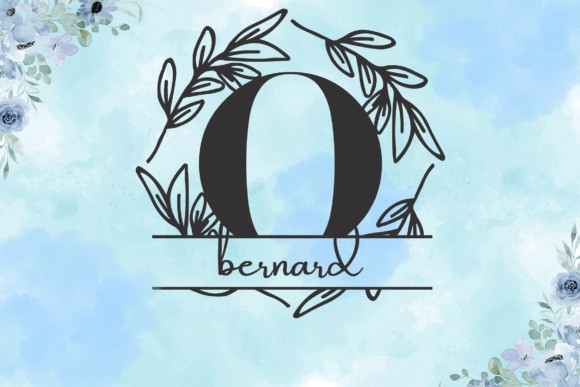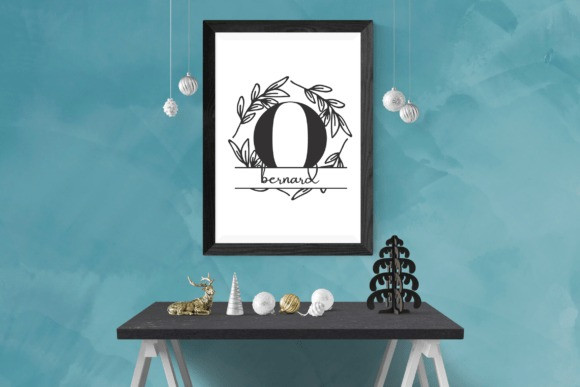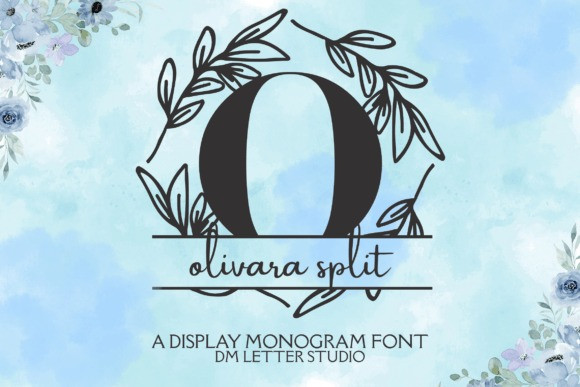
Olivara Split Monogram Font
Olivara Split Monogram Font turns simple initials into refined botanical emblems with a clean center split for names, dates, or short words. The strokes are smooth and balanced, so letters stay clear at any size. Because counters remain open and curves stay clean, tiny tags print crisp while large signage looks polished and gift-ready. Use it for wedding suites, boutique logos, keepsake gifts, wax seals, stationery, and luxury packaging. As a result, your designs feel personalized and premium in minutes.